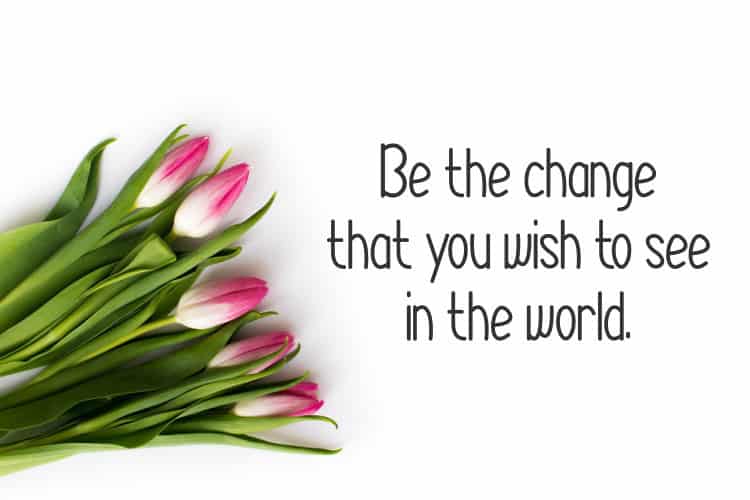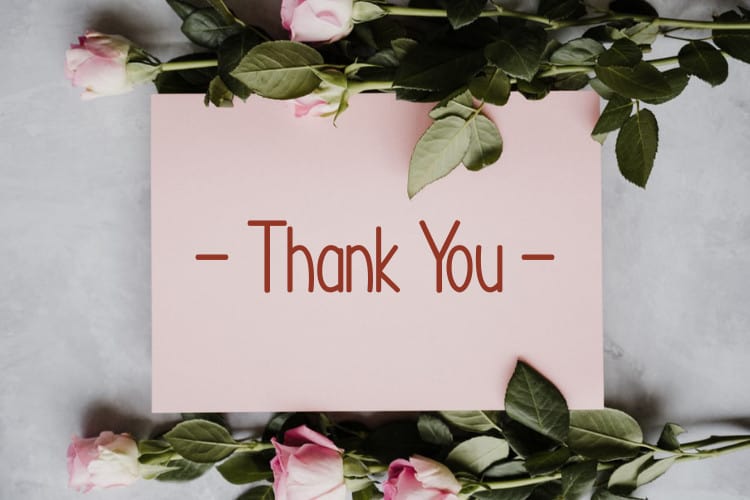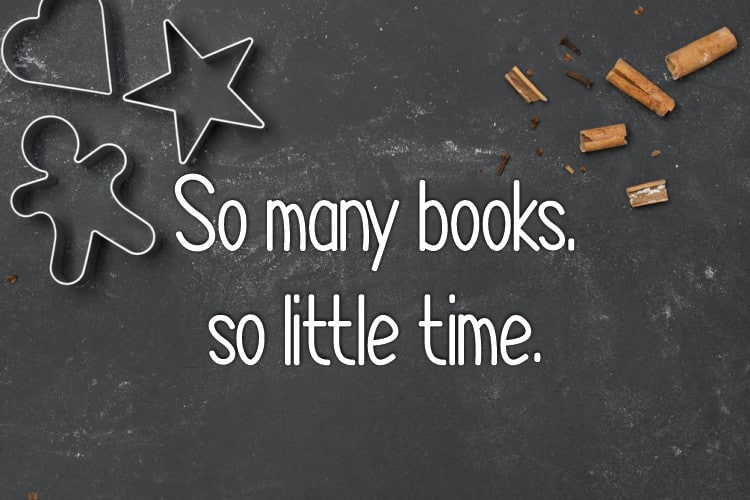
Syariana Sans Serif Font
Syariana Sans Serif Font is a sweet and friendly handwritten font. Its natural and unique style makes it incredibly fitting to a large pool of designs. The only limit is your imagination!